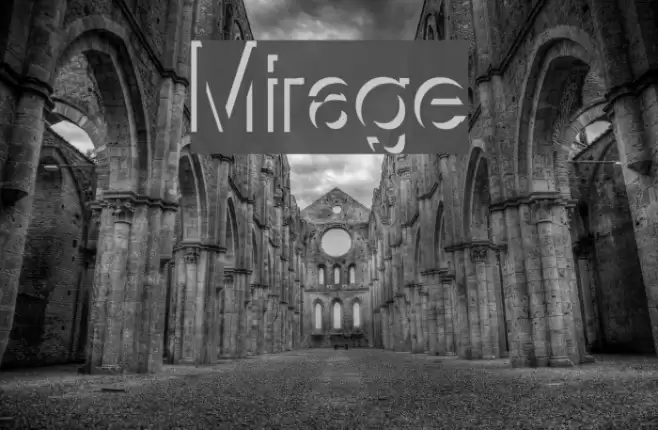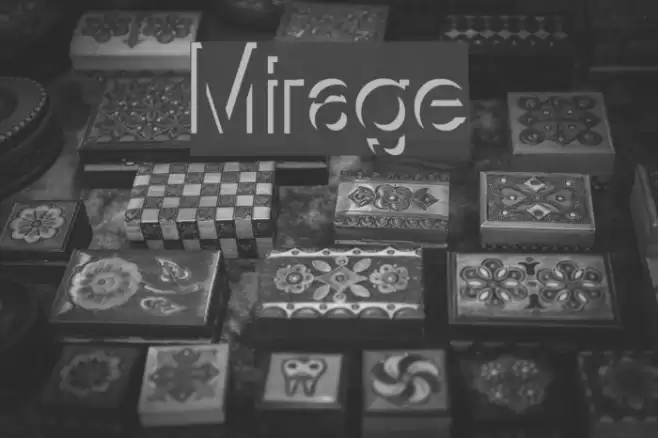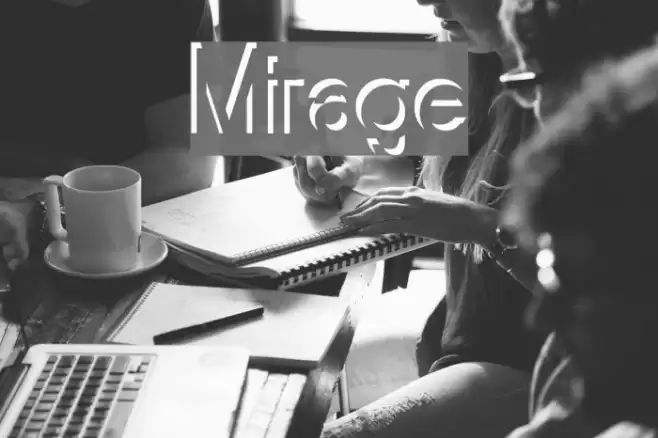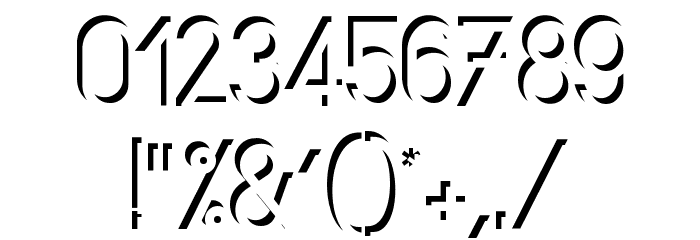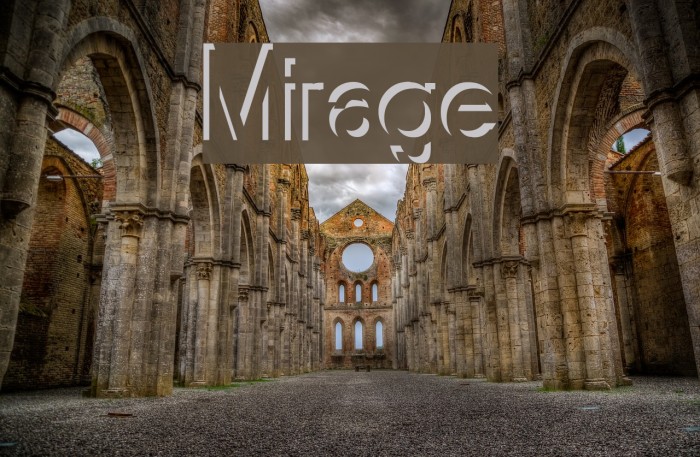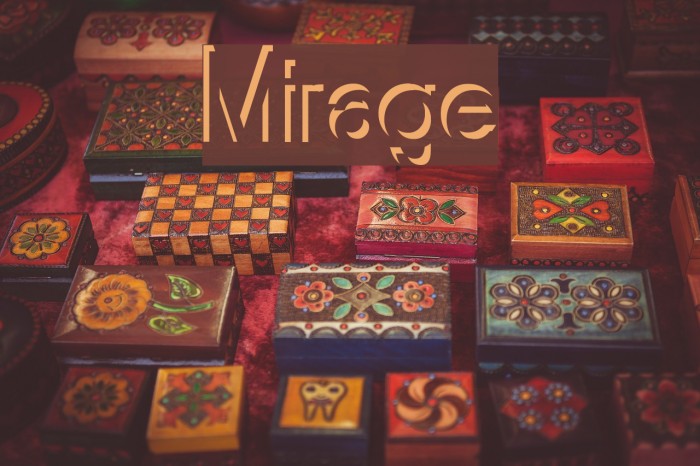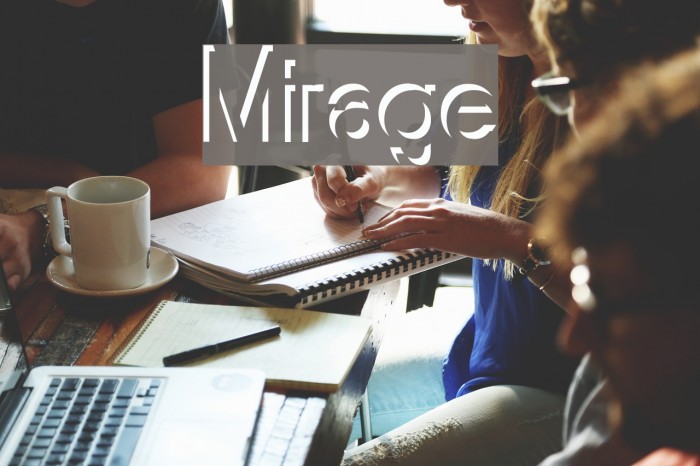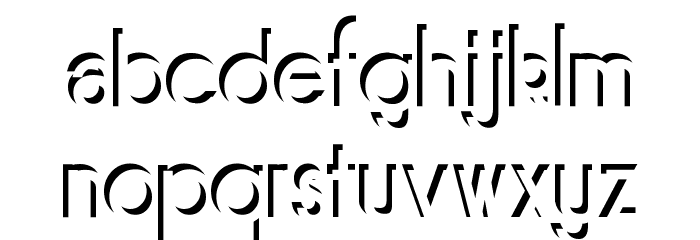
Mirage Font
Mirage Description
This font features a modern, geometric design with a unique cut-out style that creates a sense of depth and intrigue. The characters are constructed with clean lines and sharp angles, giving it a futuristic appearance. The uppercase and lowercase letters maintain a consistent style, with certain sections of each character removed to form a stencil-like effect. This design choice adds a layer of complexity and visual interest, making it stand out in any application. The numerals and special characters follow the same design principles, ensuring uniformity across the entire character set.
A modern, geometric font with a unique cut-out, stencil-like design from Uncategorized fonts.
- Proposed Projects: Ideal for branding, advertising, and editorial design where a modern and edgy look is desired.